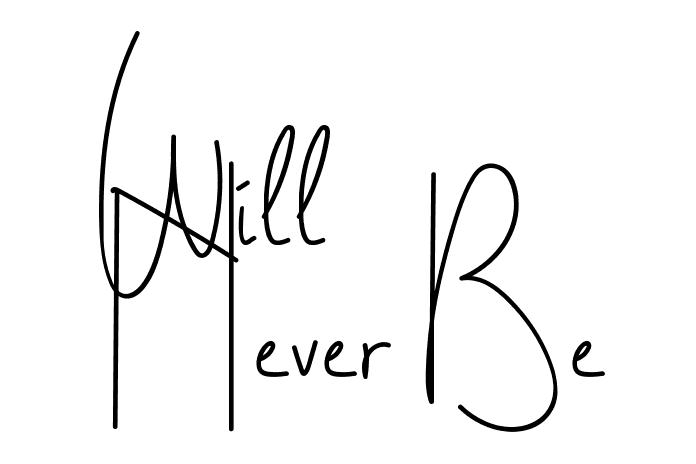
Brush effect Font
Introducing Brush effect Font! Brush effect is a modern brush  typeface.
is perfect for wedding designs, social media posts, advertising, product packaging, product design, photography, watermarks, stationery and more.
Font designer Siti Nurjanah
Typeface classification Brush,Script